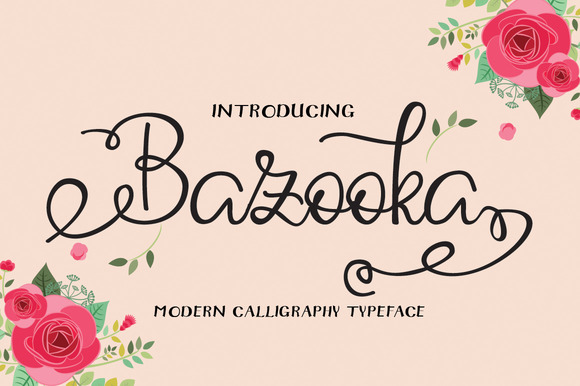
Bazooka Font
Introducing Bazooka Font, a captivating script typeface that will ignite creativity and elevate your designs to new heights!
Step into the enchanting world of calligraphy, where Bazooka Font gracefully dances across the page. This exquisite brush script seamlessly blends the elegance of traditional calligraphy with the boldness of modern typography. Its fluid strokes and enchanting curves evoke a sense of effortless grace, making it the perfect choice for adding a touch of charm and originality to any project.
Whether you're crafting captivating headlines, designing eye-catching logos, or creating enchanting invitations, Bazooka Font will effortlessly elevate your creations. Its enchanting presence demands attention, while its graceful lines captivate the hearts of all who behold it.
Dive into a world where imagination soars, and let Bazooka Font guide you to the pinnacle of design artistry. Its versatility knows no bounds, offering endless possibilities to unleash your creative spirit. Its bold strokes add a touch of playfulness, while its delicate curves evoke a sense of timeless elegance.
With Bazooka Font, the possibilities are infinite. Its enchanting presence will transform your designs into masterpieces, leaving an unforgettable impression that will linger in the minds of all who encounter it.
Don't settle for ordinary fonts. Embrace the extraordinary with Bazooka Font, where calligraphy meets modern design, and magic is born. Let your imagination run wild and create designs that will captivate, inspire, and enchant.